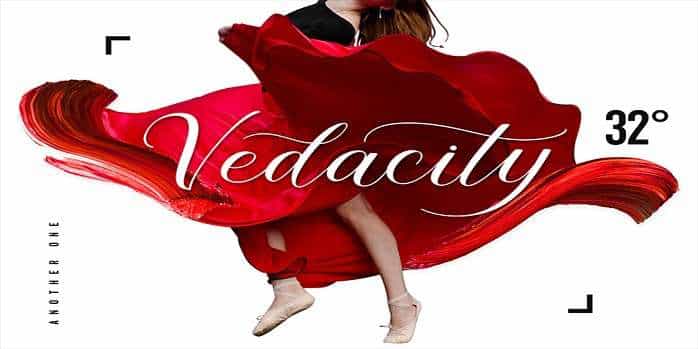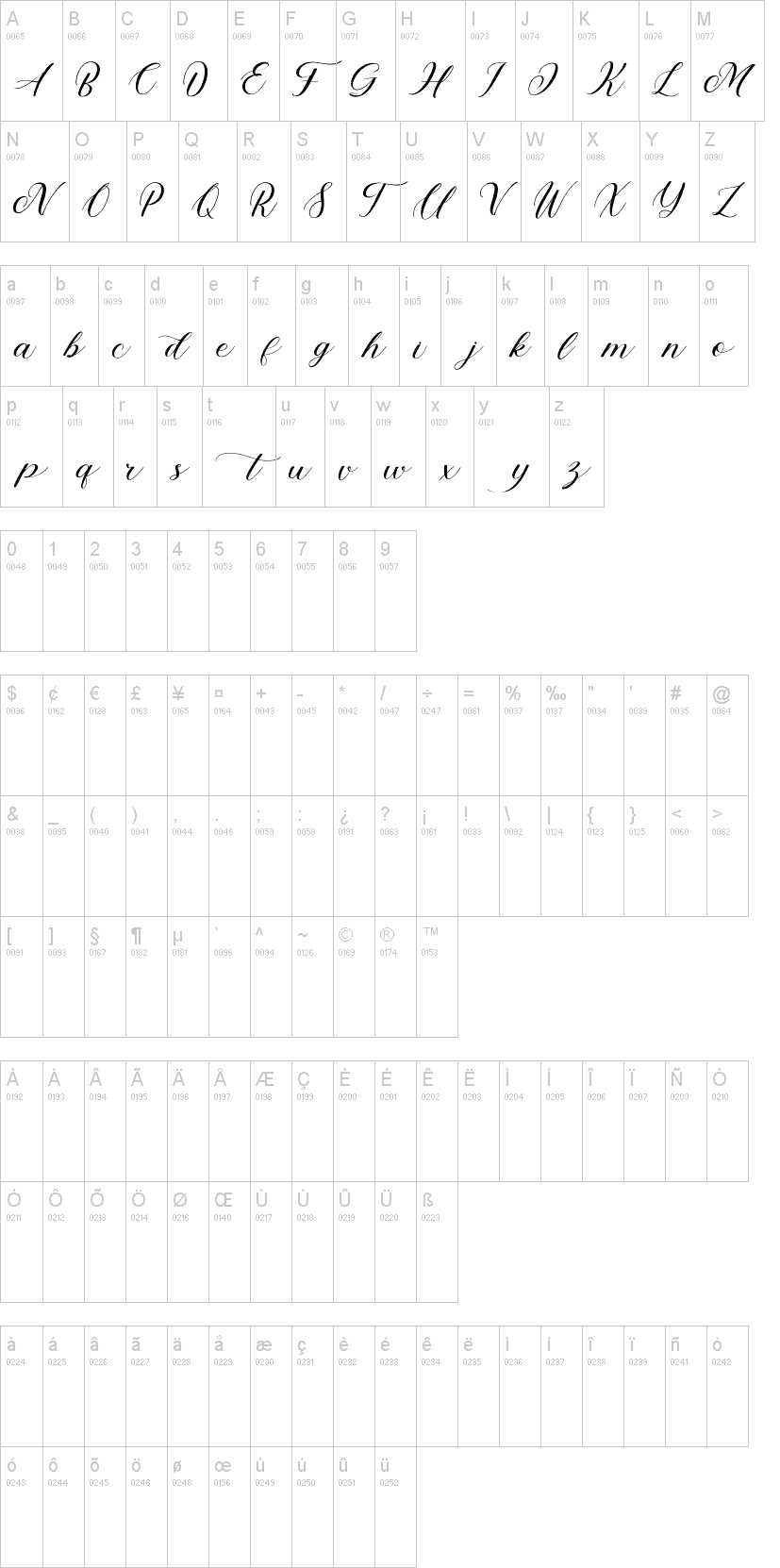
Vedacity is a classy, sexy script font, with the contemporary calligraphy look that you will not be able to overlook like the current trend. From the aspect of the society behavior regarding the trends they always pursue while at the same time wanting to present something different yet unique from it.